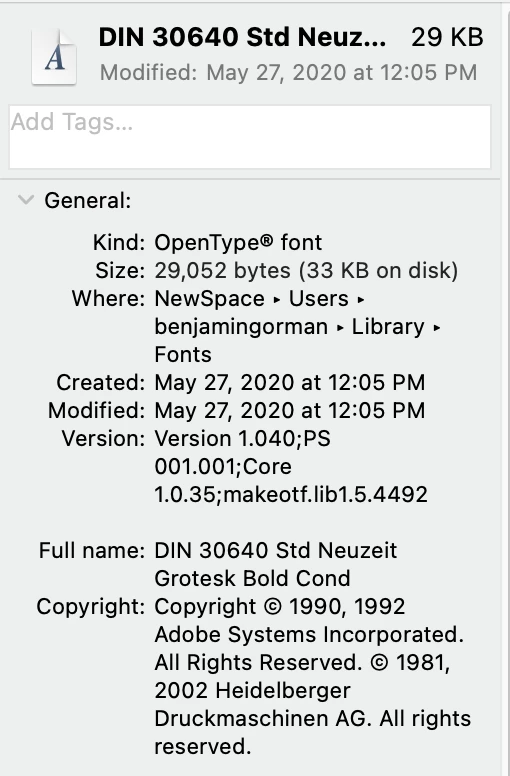
Font not rendering as expected
I’m resurrecting an old book for reprint from files created in 2000. It included a few Type 1 fonts, which I’ve had to upgrade (creating minor text reflow issues, but generally not bad). But one font, DIN 30640 Std Neutzeit Grotesk Bold Cond.otf seems fine on screen, but renders in a PDF/X-1a:2001 rather fat. Not obviously “faux bold” but just thicker than it should be, and thicker than its screen appearance. Say 15%.
The former font this new DIN is replacing is “DIN Condensed Bold.ttf” (©1981, 2002). When I found out about the font issue, I acquired the new DIN font, and chose to disable the old one via Font Book. I see that the macOS placed it in this directory: [drive]>System>Library>Fonts>Supplemental.
The old font is not available in Font Book (grayed out, “Off”). I want to trust Font Book, but I wonder if there is any way that the old font is interfering in the creation of my .pdf where it looks odd, or is somehow only influencing my own OS screen renders when I look at it on my MacBook Pro, but it will be fine in the (offsite) pro printer’s workflow. Was there a problem in the order in which I installed the new one and disabled the old (don’t recall, but may have disabled the old AFTER installing the new)?
I believe the “thinner” look to be the more accurate because I have a hard copy of the book, as printed in 2001, to compare to, and my memory for font looks is pretty reliable. Which is why I cocked my head when I saw the thick render in my output .pdf (from InDesign 20.5.4, as I am running a 2015 MBP under Monterey).
FYI, this is not the same machine or system under which the original document/book was created, of course. That was in 2000 & 2001. And it was done in QuarkXPress 3.31. I used InDesign to bring that old file forward, and still had a lot of work to do to clean it up.
In the final analysis, when printed (through the IngramSpark POD workflow this book’s reprint has used), it appears more closely matched to the original (I have prints of the book from the original release in 2001) than it appears on-screen viewing the .pdf file I sent in to be printed. I would say the match is close enough in print, in fact, that few eyes would be able (or care to) notice any difference. The on-screen rendering was, perhaps a fluke of my system? My workflow? The result is—except for a few concessions like new ISBN and some new branding—essentially indistinguishable. Which was the goal!
Is the font embedded? With InDesign’s Save As DPF, who can tell? I jest. The Save As PDF function simply offers that I can choose the percentage of characters used below which it will “Subset fonts,” and offers, “All fonts with appropriate embedding bits will be embedded.” Yes, it’s embedded, not subsetted, and not outlined.
I think you’re on to something about the source. In the process of researching the resurrection of this book, from ancient files, I quickly realized the Type 1 fonts had to be replaced. I don’t recall where I found the (presumably) Type 1 version of this font that I used back in 2000. But searching for this resurrection, I found that Adobe does not offer this particular weight (“DIN 30640 Std Neuzeit Grotesk Bold Cond”)—Adobe Fonts only offers 6 fonts in the family, the closest of which is not that close to what I used ‘back in the day.’
The naming concerns me a bit. WTAF is meant by “Std” in a font name? Standard? Sexually transmitted disease? And putting that together with “Bold Condensed” seems fraught with confusion. But that’s just me.
At this late stage, I think I have to accept what I’m getting, which—at least on screen, we’re awaiting a digital proof, followed later by a hard copy—appears to be a font that’s about 15-20% fatter in its pdf render than it is in the InDesign layout render. And the layout more closely matches the original printed copies of the book that I have. Sigh.
Sorry, I meant to say the full font name I used above is the naming from the online source I ended up using, FontsGeek. It’s an OTF which, interestingly, in the Get Info on the font file, bears Adobe and Heidelberger Druckmaschinen AG copyrights from long ago….
Adobe distributed a DIN Neuzeit Grotesk Bold Condensed Type 1 font back in the 1990's. The font name didn't include those "30640" numbers in the font name. It's as if someone took the Type 1 font files and made some alterations.
Numerous type companies have made DIN style fonts. The style goes back to lettering used on German highway signs. There's fonts like DIN Engschrift, DIN Mittelschrift and (of course) DIN Neuzeit. The type company Font Font released an expansive re-make of DIN twenty some odd years ago. Font Font was among many companies acquired by Monotype. Some of those FF DIN fonts are available now via Adobe Fonts.
Technical issues could be related to the quality of the font file itself. I'm familiar with lots of DIN-style fonts, but not the version you're using. If the font file is from a free fonts web site odds are higher it would have technical problems.
Adobe Fonts has a number of DIN-style type families that work pretty well as far as I can tell. There's DIN 2014 and DIN Condensed from Paratype, URW's version of DIN and FF DIN Paneuropean. Those all work pretty well. One of them may cover the DIN style used in your original document better than the font you're currently using.